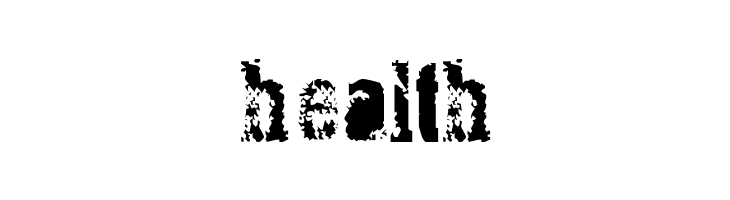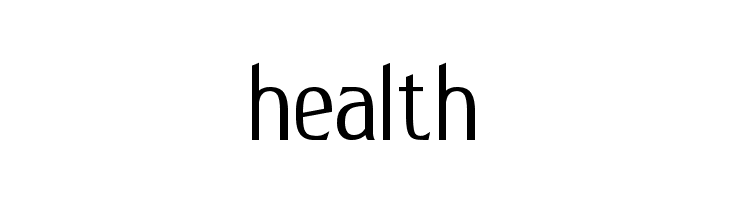
Deluxe Edition Font
A cursive, handwritten font with elegant and fluid strokes.
DeluxeBook Font
A modern, geometric font with clean lines and a structured appearance.
SantasSleighFull Deluxe Font
A playful, balloon-like font with a festive, three-dimensional design.
Brother Deluxe 1350 Font Font
A bold, distressed typewriter-style font with a vintage, grunge aesthetic.
Comics Deluxe Italic Font
A bold, italicized font with a playful, comic-inspired style.
Royal Quiet Deluxe Font
A vintage typewriter-style font with a bold, distressed appearance.
Charriot Deluxe Font
A bold, geometric font with a pixelated, monospaced style.
Comics Deluxe Font
A playful, bold font with cartoonish, dynamic characters.
boomerang monkey deluxe. Font
A playful, bold font with a bubbly, three-dimensional design.
Qualité Deluxe Platinium Font
A bold, decorative script font with elegant loops and swirls.
Comic Marker Deluxe Font
A bold, playful handwritten font with a comic book style.
DeluxeFont Regular Font
Daniel Deluxe Font
A playful, rounded, and handwritten-style font.
Strip Club Motion Sickness grunge deluxe Font
A bold, distressed font with a grunge aesthetic and rough edges.
Year2000 Context Deluxe Font
A bold, dynamic font with sharp angles and a modern-vintage blend.
Deluxe Ducks Font
A bold, geometric font with a futuristic and industrial design.
Comic Marker Deluxe Italic Font
A bold, playful, and italicized font with smooth, rounded strokes.
FT Rock It! Deluxe_Demo Font
A bold, distressed font with a grunge texture and strong vertical emphasis.
DeluxeDucks-Regular Font
A bold, geometric font with a futuristic double-line style.
SMB Deluxe Regular Font